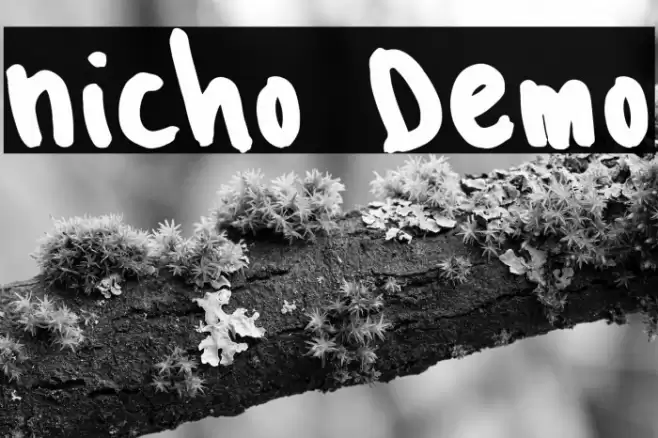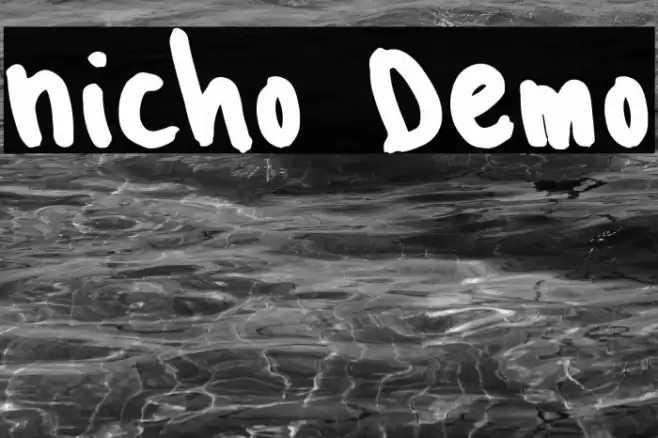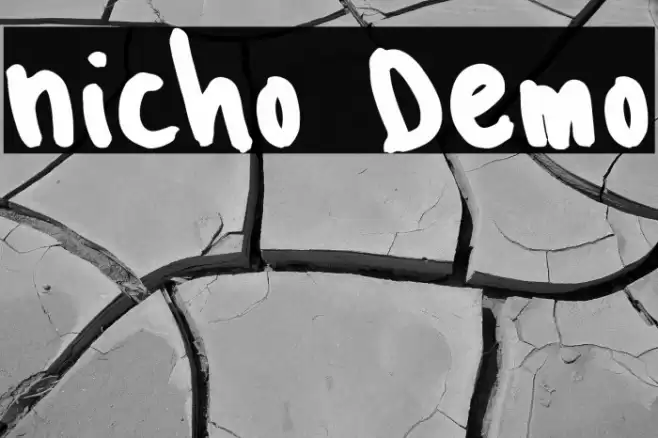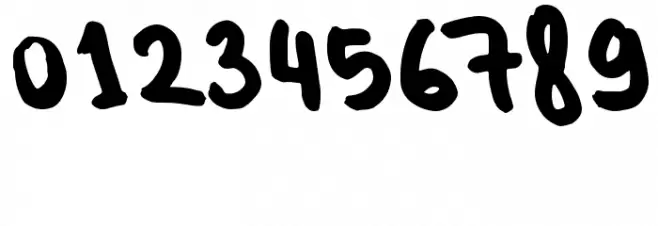
Nicho Demo Font
Nicho Demo Description
This font exudes a playful and casual handwritten style, characterized by its bold and rounded strokes. The letters have an informal and friendly appearance, with a slightly irregular baseline that adds to its charm. The uppercase and lowercase letters maintain a consistent style, ensuring readability while conveying a sense of spontaneity. The numbers and special characters are crafted with the same playful aesthetic, making them suitable for creative and informal projects. Overall, this font is perfect for designs that require a personal touch and a lively, approachable vibe.
A playful, bold handwritten font with rounded strokes and a casual style from Regular fonts.
- Proposed Projects: Ideal for greeting cards, children's books, playful branding, and social media graphics.
- Overall Style: Casual
- Use Case: Logos, Headlines, Informal Text